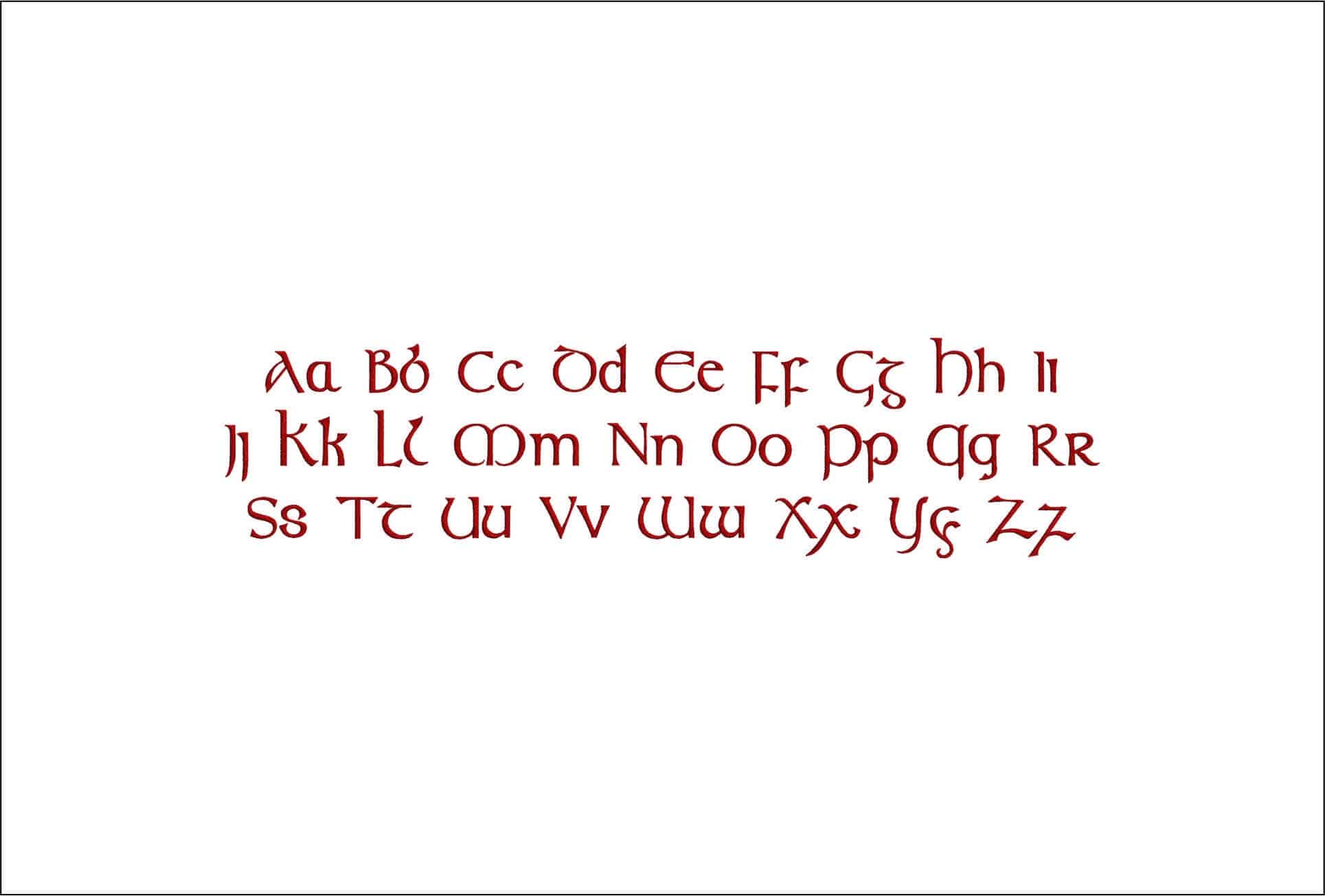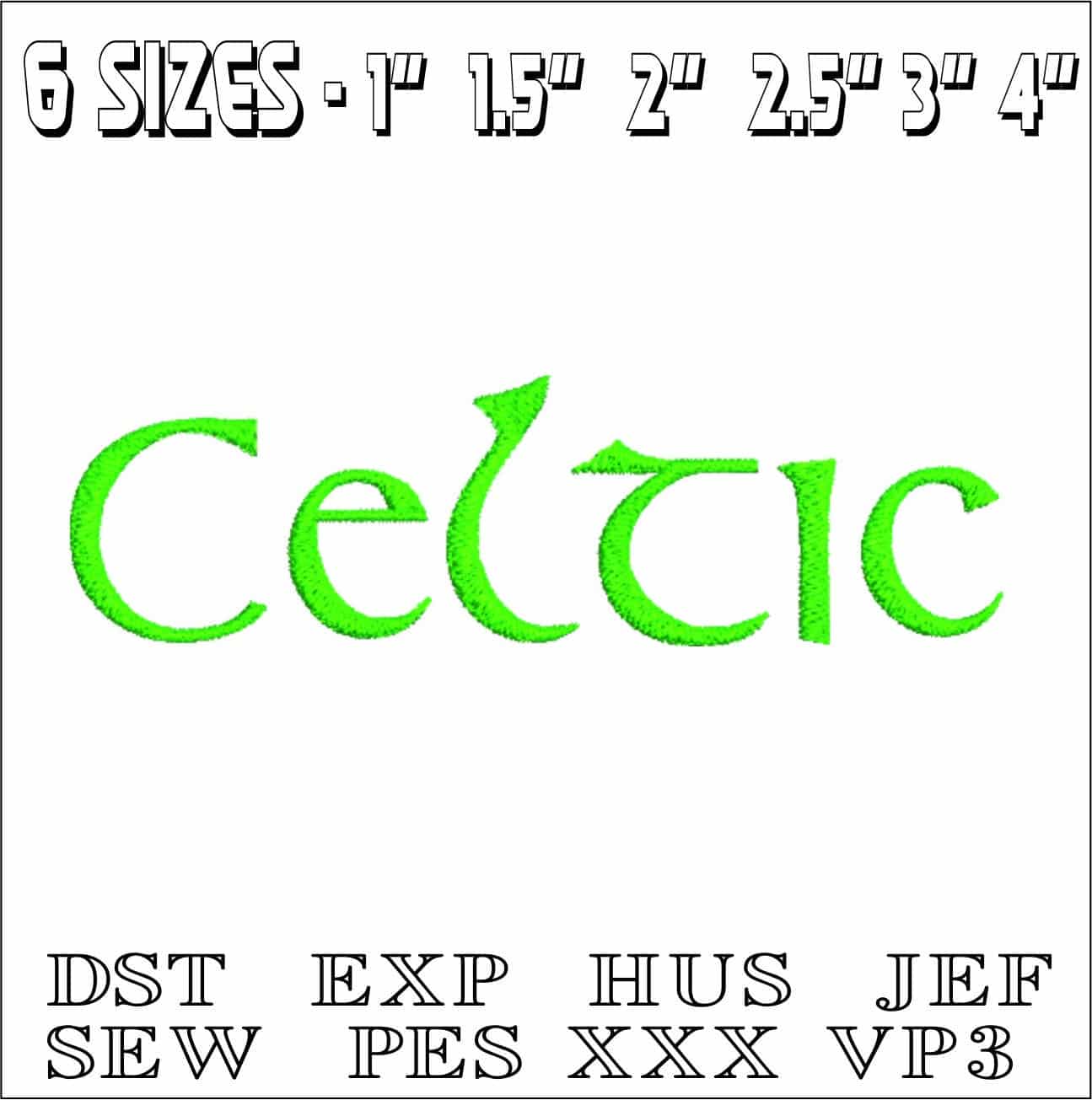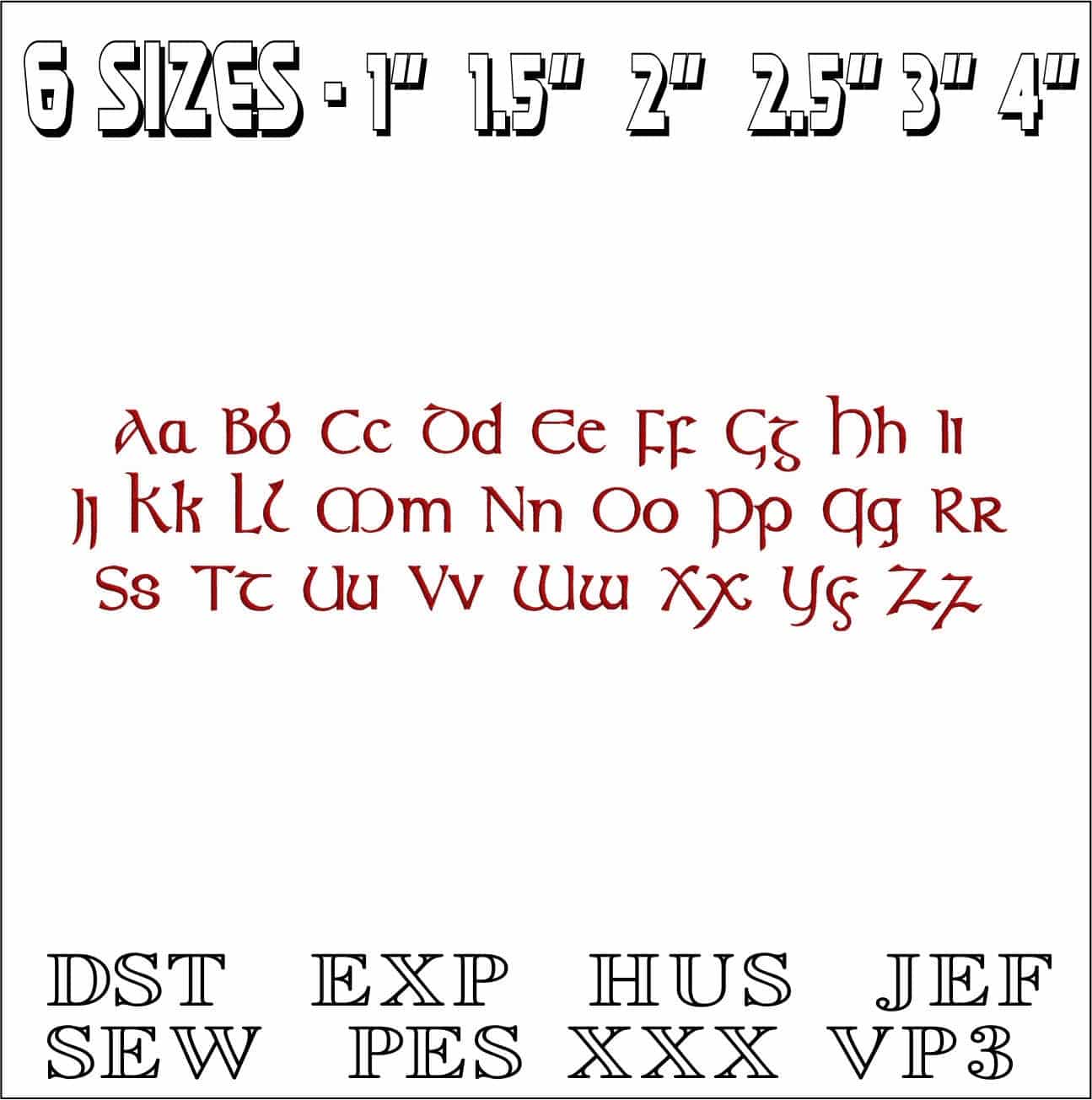
A decorative Celtic alphabet with pointed serifs and flowing strokes, for monograms and names that need real medieval character.
Bring Celtic character to names, initials and short phrases with this decorative embroidery alphabet, drawn with pointed terminals, curved calligraphic strokes and stylised serif detail. The letterforms have a distinctly insular feel without becoming hard to read, so they suit makers who want something more distinctive than a plain script. Uppercase and lowercase are both included, making it useful for monograms as well as fuller names on gifts and personal projects.
It would sit especially well on linen cushions, wool blankets, book covers, tunic-style garments and sturdy cotton tote bags, where the shaped serifs and sweeping lines can do the talking. On darker fabrics, the Celtic styling stands out particularly well for surnames, clan-inspired initials or heritage-themed wording. This is the sort of font that gives a simple name a more crafted, old-world presence rather than a modern, minimal look.